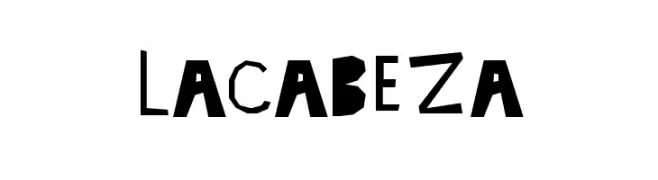
( Fonts by Manuel Viergutz - Typo Graphic Design - www.typographicdesign.de )
A distressed, grunge font with a torn, edgy appearance.
( Fonts by Jason Arthur - JibbaJabba Fonts - www.myspace.com/jasonarthurloaded )
A rough, italic typewriter-style font with a vintage, distressed texture.
( Fonts by Jason Arthur - JibbaJabba Fonts - www.myspace.com/jasonarthurloaded )
A rugged, vintage typewriter-style font with a distressed, textured appearance.
A geometric, origami-inspired font with bold, angular lines and a modern aesthetic.